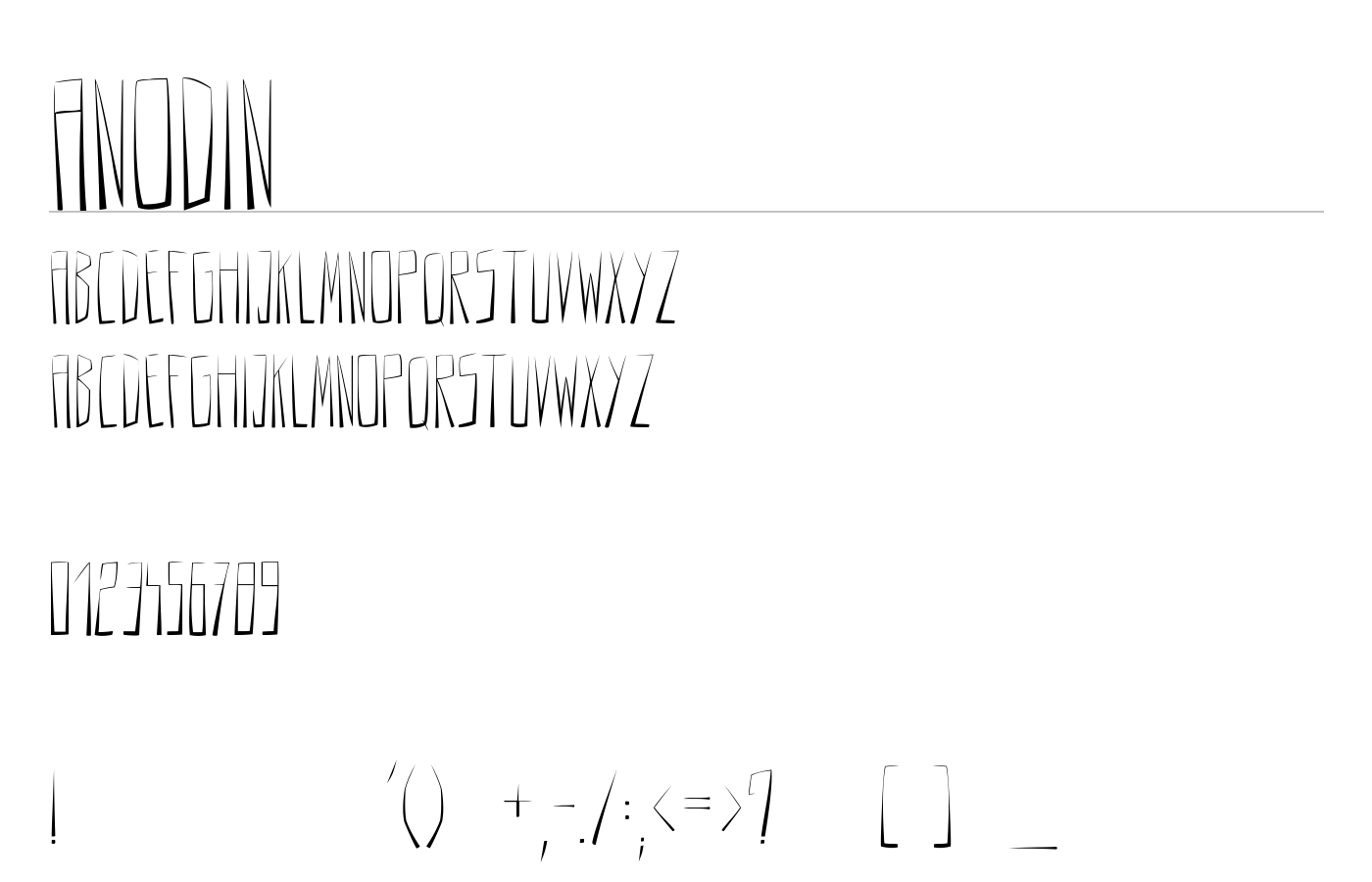
ANODIN is a tall, slender sans serif font with a quirky, hand-drawn feel that combines sharp, slightly irregular strokes with a modern geometric structure. Its thin lines and condensed width give it a distinctive, edgy personality, making it ideal for creative and artistic projects that seek a unique, unconventional look. This font works well in eye-catching headlines, posters, and branding that aim to stand out with a playful yet sophisticated style.
ANODIN Font
About ANODIN Font
| Font family | ANODIN Font |
| Designer | Guillaume Kurkdjian |